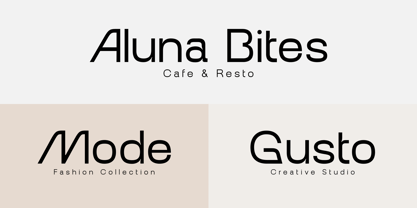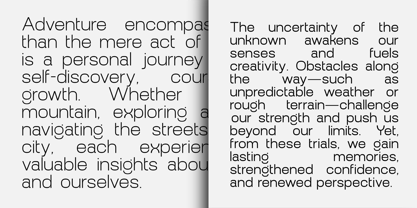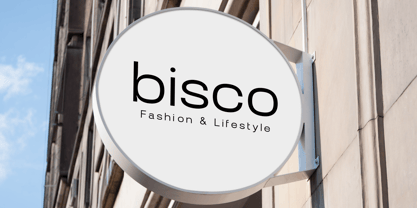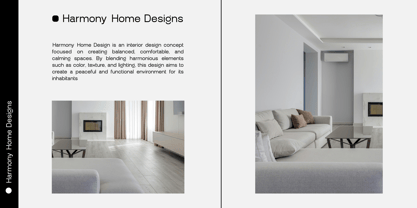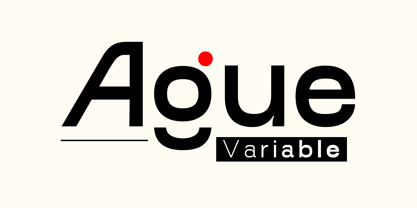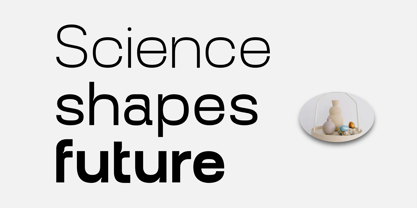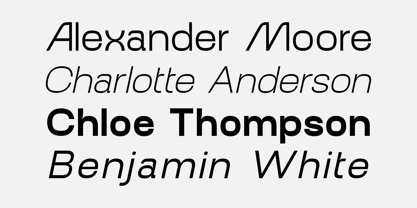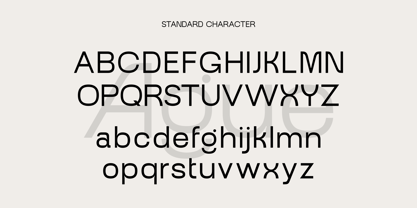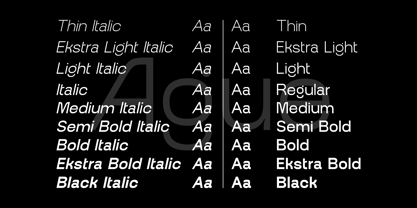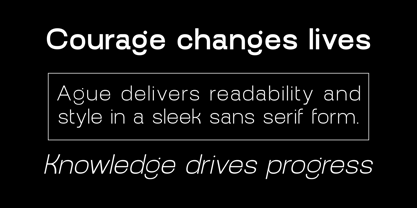
Ague Variable
The Ague Variable Font Family was designed by Su Hirno and published by Zafira Type. Ague Variable contains 2 styles and family package options. More about this family
Ague Variable is a clean and modern sans serif font family designed for versatility and elegance across all types of design projects. Featuring 9 weights, from Thin to Black, each with a matching italic, Ague offers full typographic flexibility. With its balanced proportions, sharp lines, and minimalist details, Ague is ideal for branding, editorial layouts, UI/UX design, and professional presentations. Whether in print or on screen, Ague delivers clarity and style at every size.